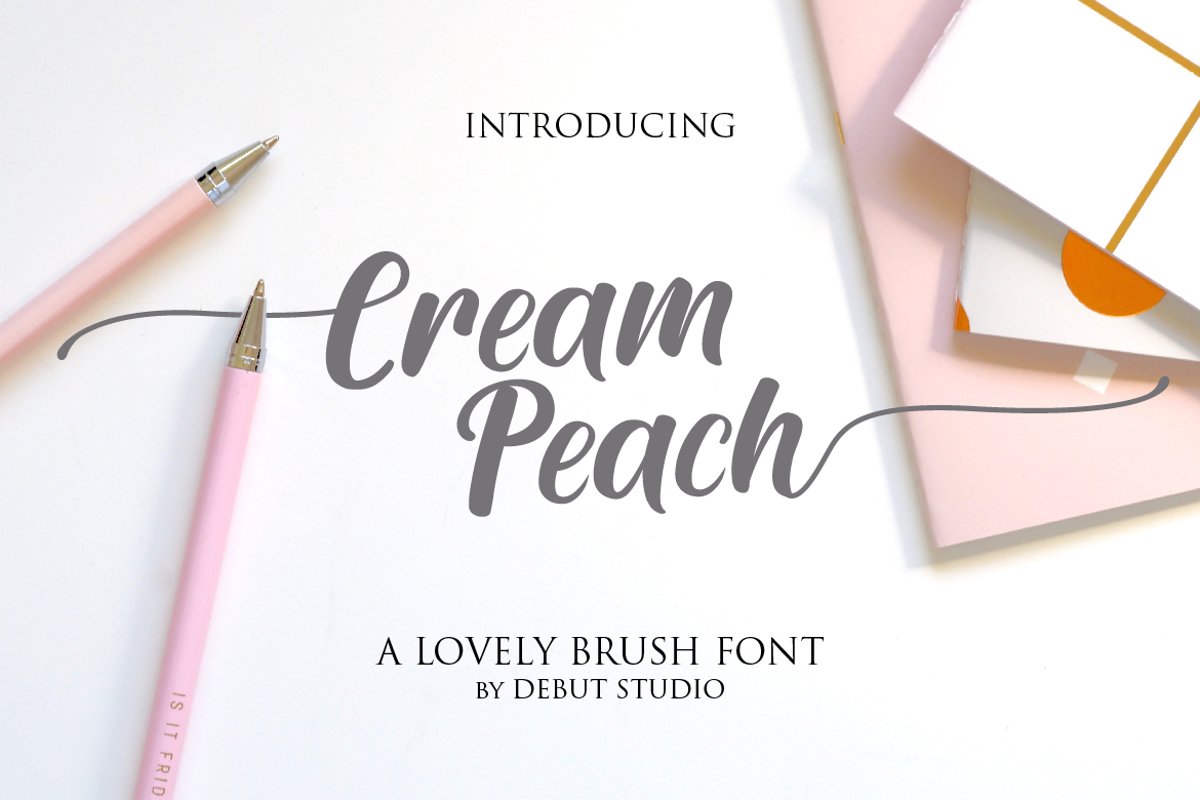
Cream Peach
Introducing, our latest stuff, Cream Peach Lovely Brush Font.
This font is suitable for wedding invitation, poster, quote, label, card name, and other stuff
* Alternate Stylistic Character